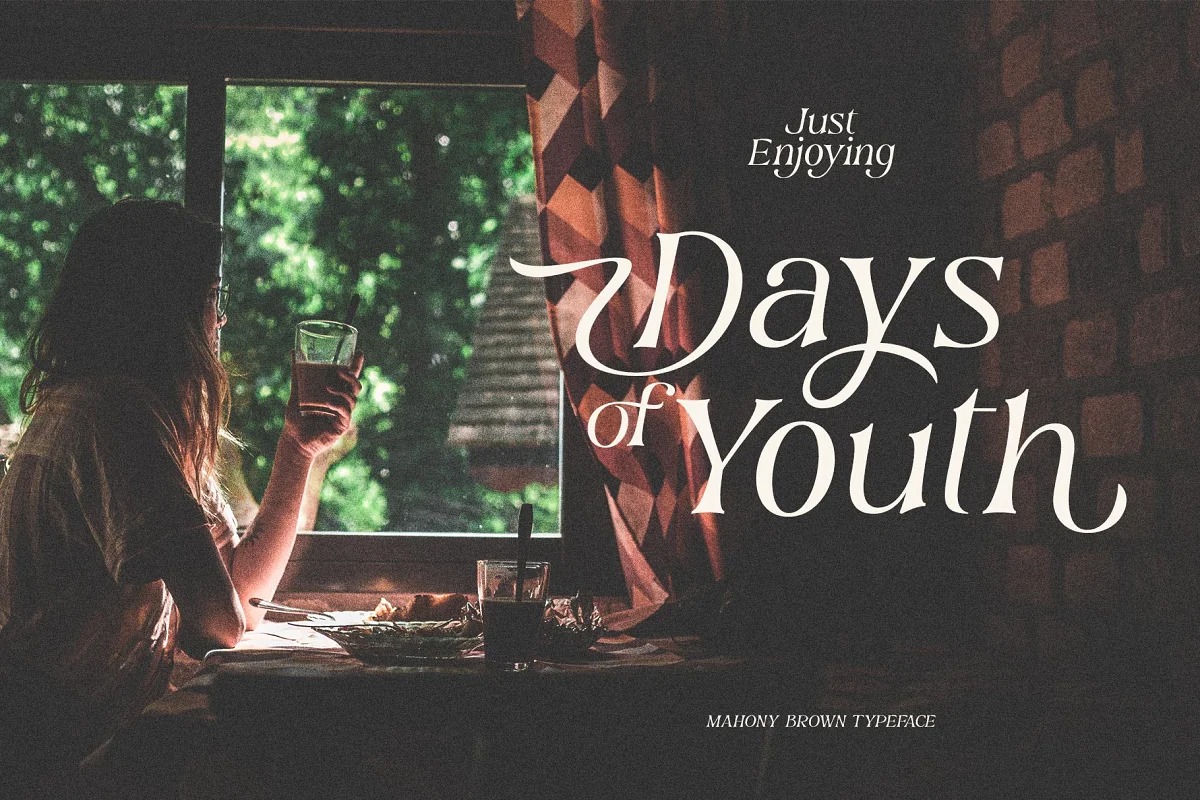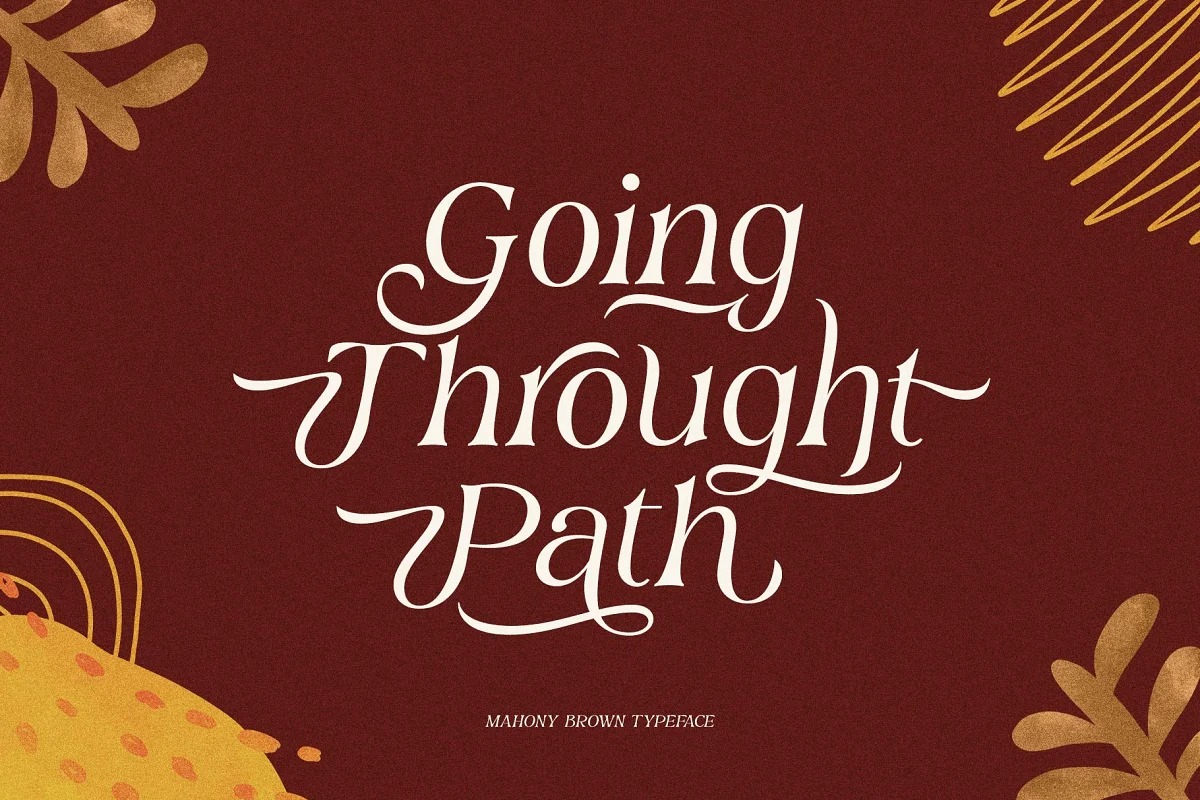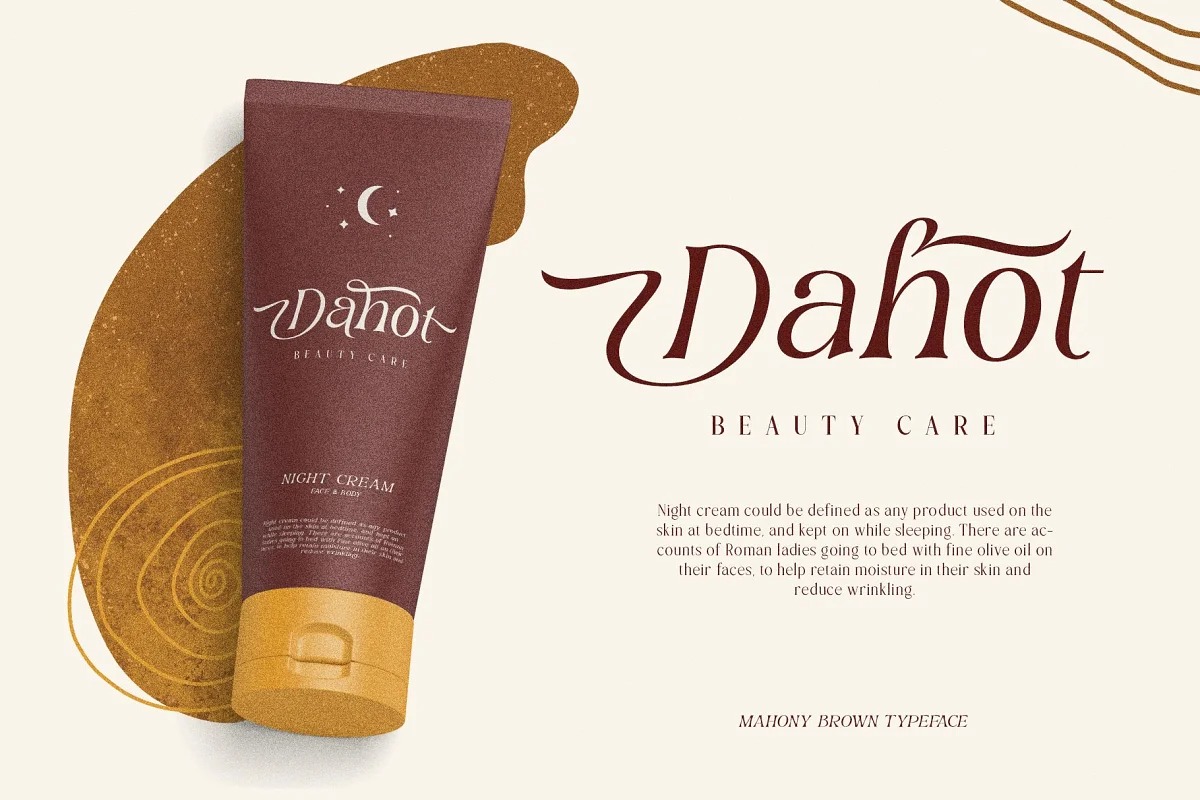
Mahony Browns Font
Mahony Browns Serif Font
If you’re looking for a modern serif font to attract your audiences or customers then we’ve got the font for you! This typeface is an elegantly themed font that has a dynamic serif style. The details of the shape of the “Mahony Browns Serif Elegant typeface” are very smooth and flow to create unique and beautiful curves. Elegant Serif typefaces such as “Mahony Browns” are very easy to apply to any design, especially those with an elegant and smooth concept, besides that this font is very easy to use both in design and non-design programs because everything changes and glyphs are supported by Unicode (PUA).